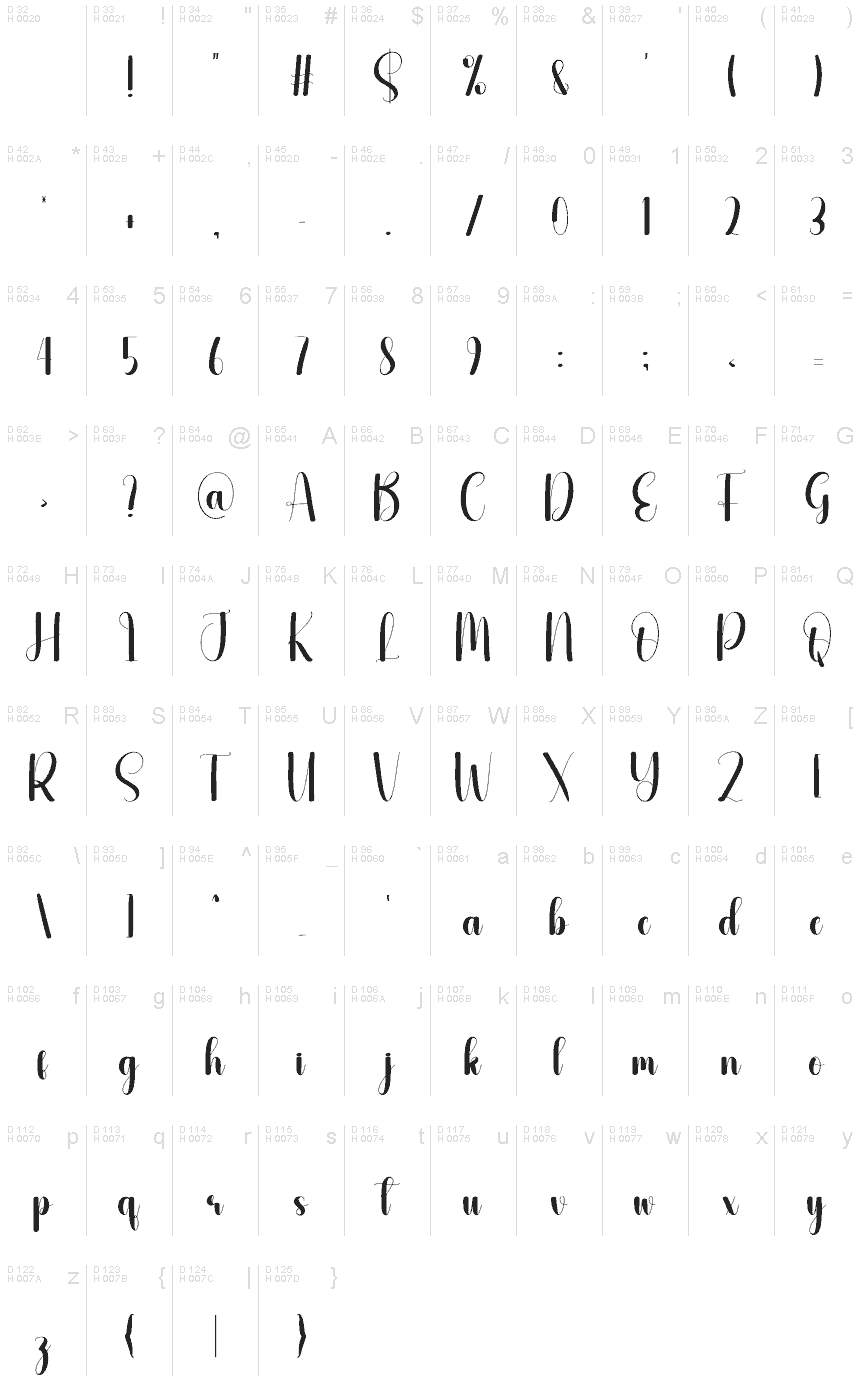
Wallcoating
Wallcoating font by Andi Moz is an elegant free calligraphy font featuring a sophisticated style. The ornate, flowing penmanship gives the typeface a signature script feel. The highly expressive letters boost up its overall aesthetic, together with exposed transitions between thin and thick strokes.
The provided use cases are wedding invitations, greeting cards, T-shirt designs, business cards, shop signs or billboards. typography logo displays for beauty products like perfumes and skincare items can also look beautiful with this font.